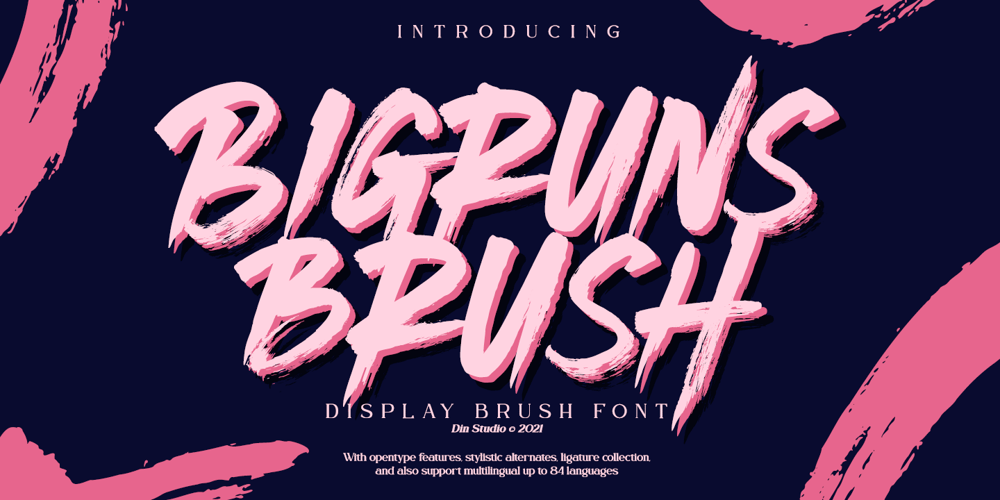
Bigruns Brush
Bigruns Brush font
Bigruns Brush Font Family was designed by Donis Miftahudin and published by Din Studio. Bigruns Brush contains 1 styles and family package options. Looking for a font that will make your branding stand out? Do you sometimes have an appetite for a bit more wholesome typography? Looking for a fabulous, stylish, and adventure font? We’ve got what you want.Bigruns Brush – A Display Brush FontBigruns Brush is a display font is accompanied by a gorgeous handcrafted script brush font that works together in perfect harmony. This font made all in uppercase that easy on the eyes and nice to look while it’s also easy to read. Designed primarily as a captivating font to add the right amount of modernity and style, The best choice to ensure a great font match for your designs and projects! Well suited to titles, poster designs, branding, quotes, and logos.Our font always includes Multilingual Support to make your branding reach a global audience. Features: Ligatures Stylistic Set PUA Encoded Numerals and Punctuation Thank you for downloading premium fonts from Din Studio